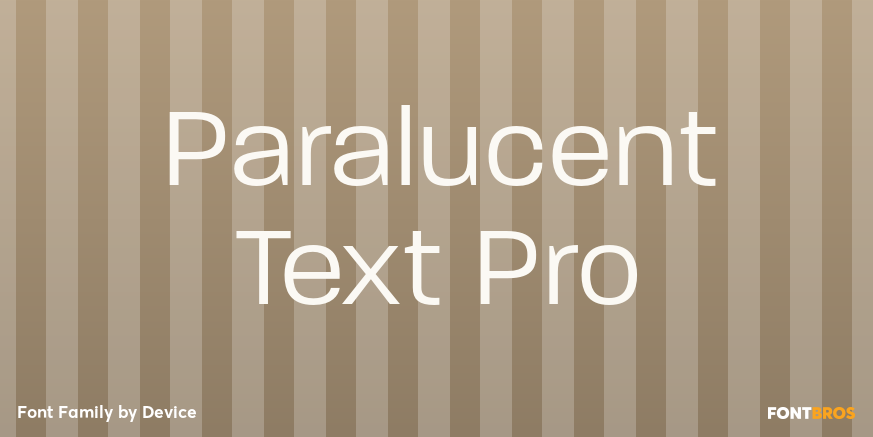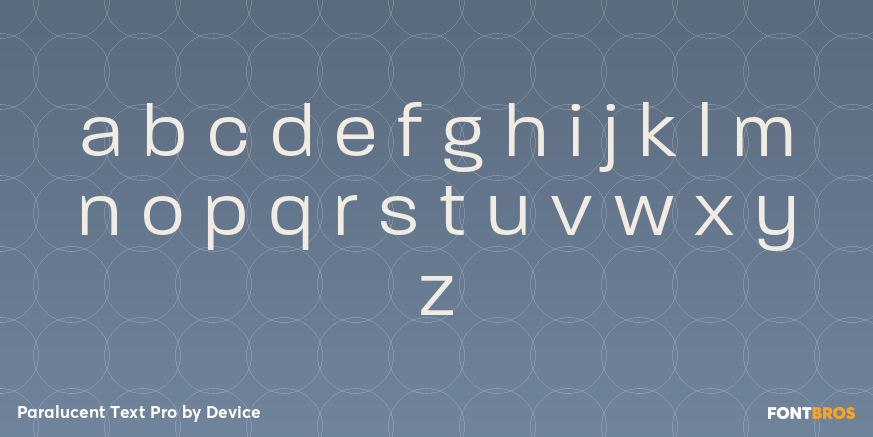
Paralucent Text Pro
Paralucent Text Pro is a modern sans serif family with a clean, contemporary voice and an easy, workhorse feel. Its straightforward shapes and text-focused styling give it a polished, readable look that feels equally at home in brand systems, editorial layouts, and everyday design applications.
Offered by Device, the family includes 4 styles: Book, Book Italic, Bold, and Bold Italic. That compact range makes it a practical choice when you want a coordinated sans serif for everything from headlines and subheads to short passages, captions, packaging, and identity work.
If you need a sans with a crisp, current appearance and a restrained personality, this family brings useful versatility without feeling generic. The italic and bold companions add just enough contrast for hierarchy, emphasis, and flexible page composition.